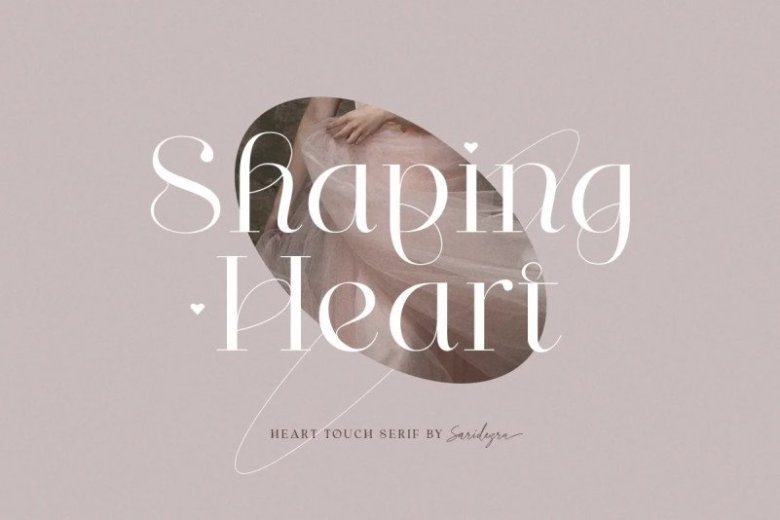
Shaping Heart Font
Shaping Heart Serif Font is a condensed serif font with a unique upper and lower case. Made from font designer named Sarid Ezra. You can use this font for several purposes such as a wedding invitations or even your own branding! This fonts support Multi Language and already PUA Encoded! Also comes with beautifully crafted details that make this font more stylish.